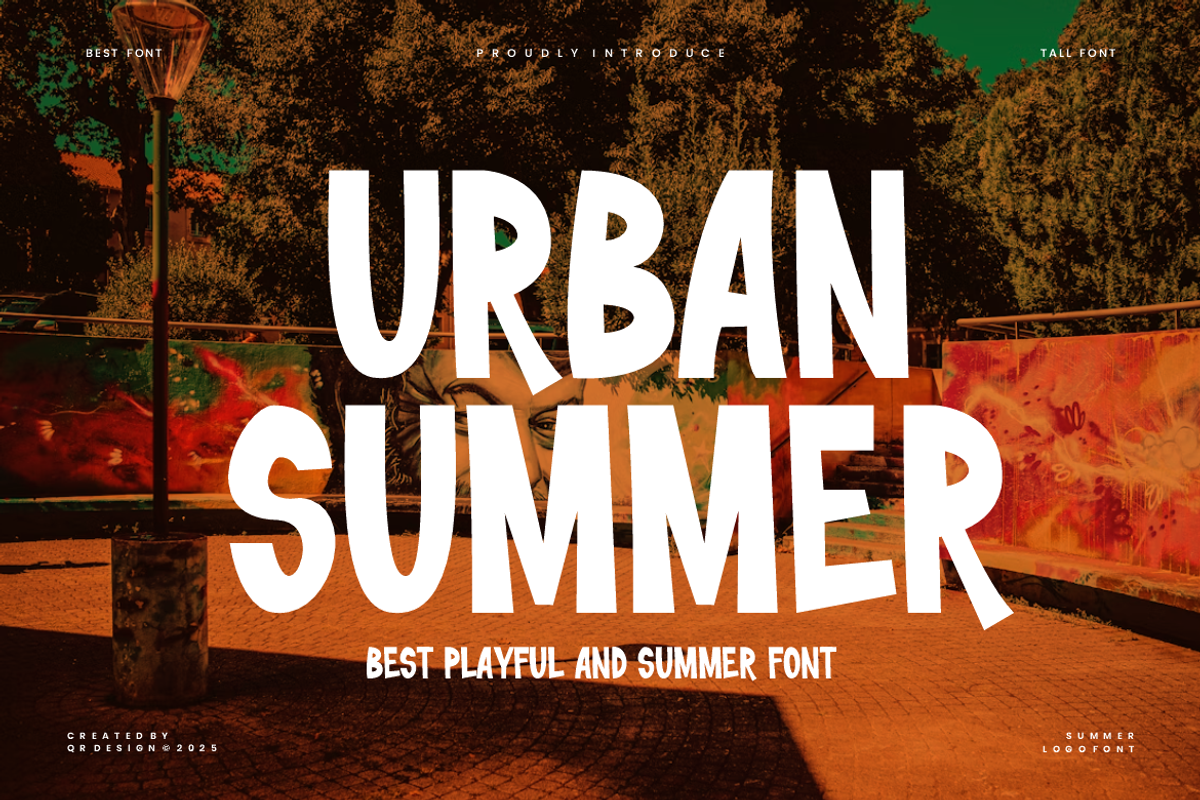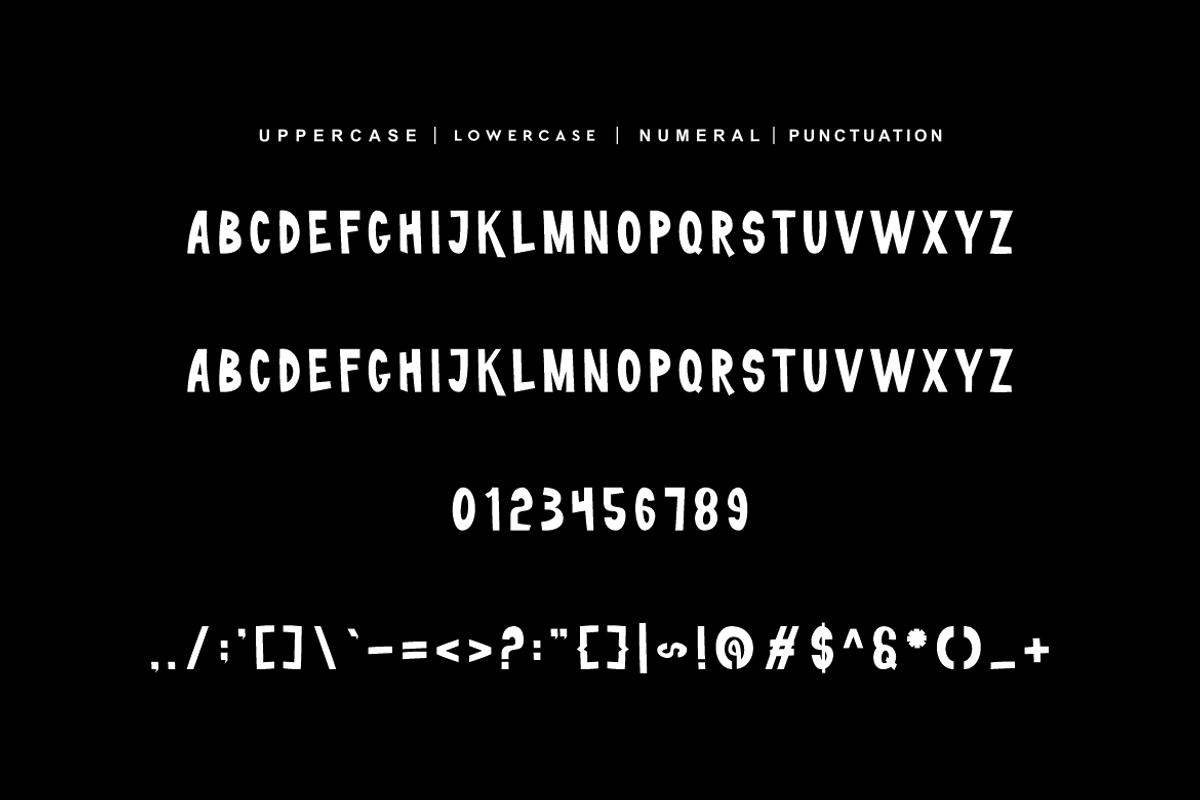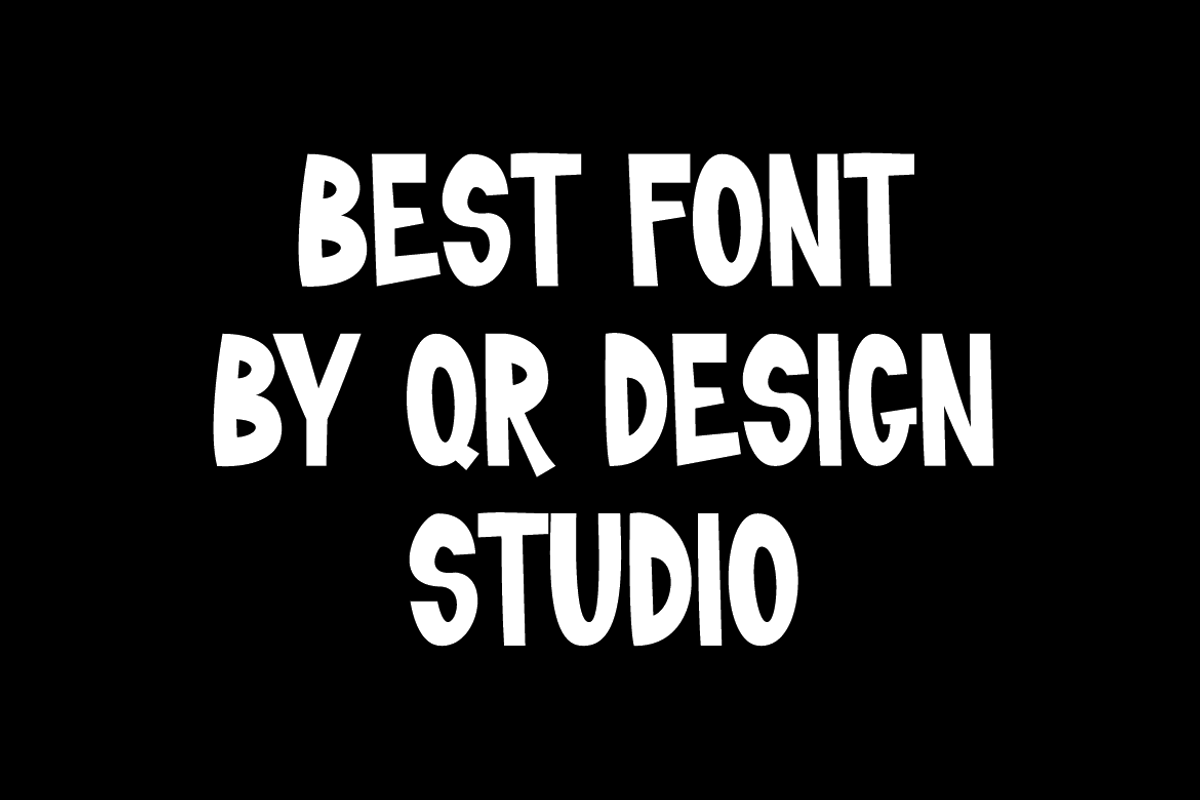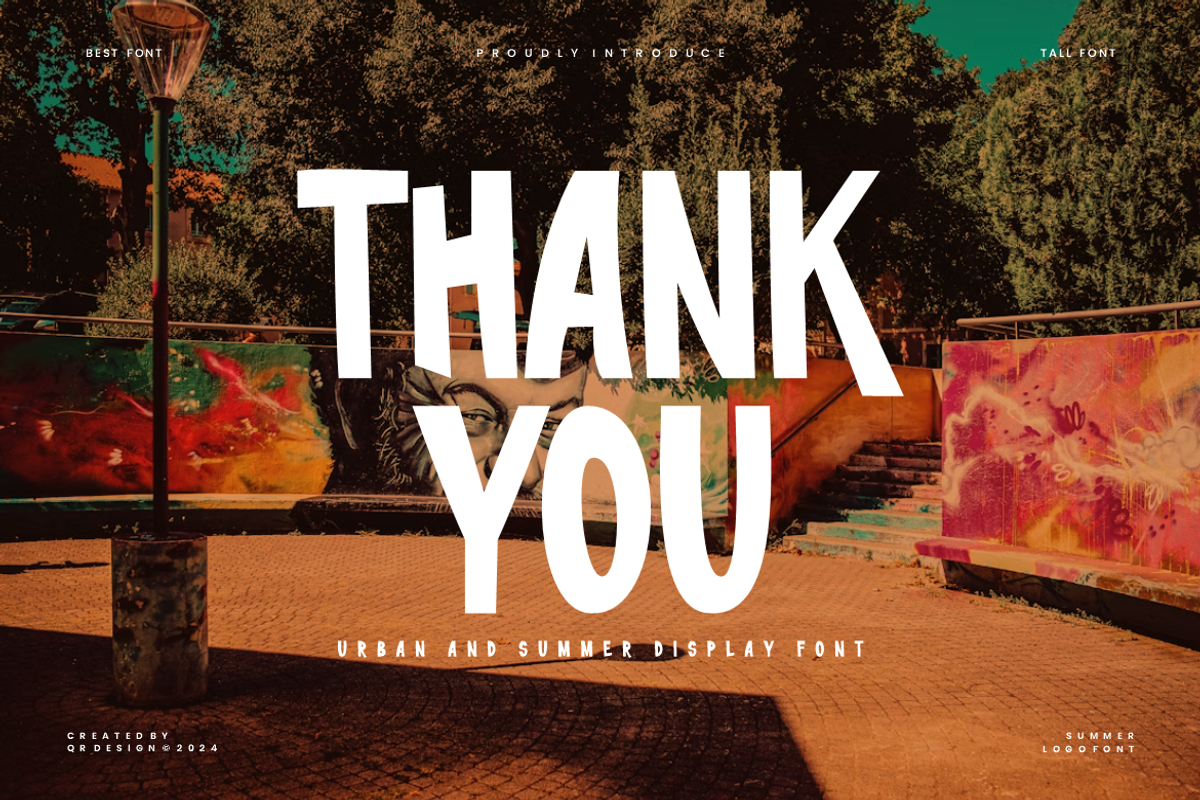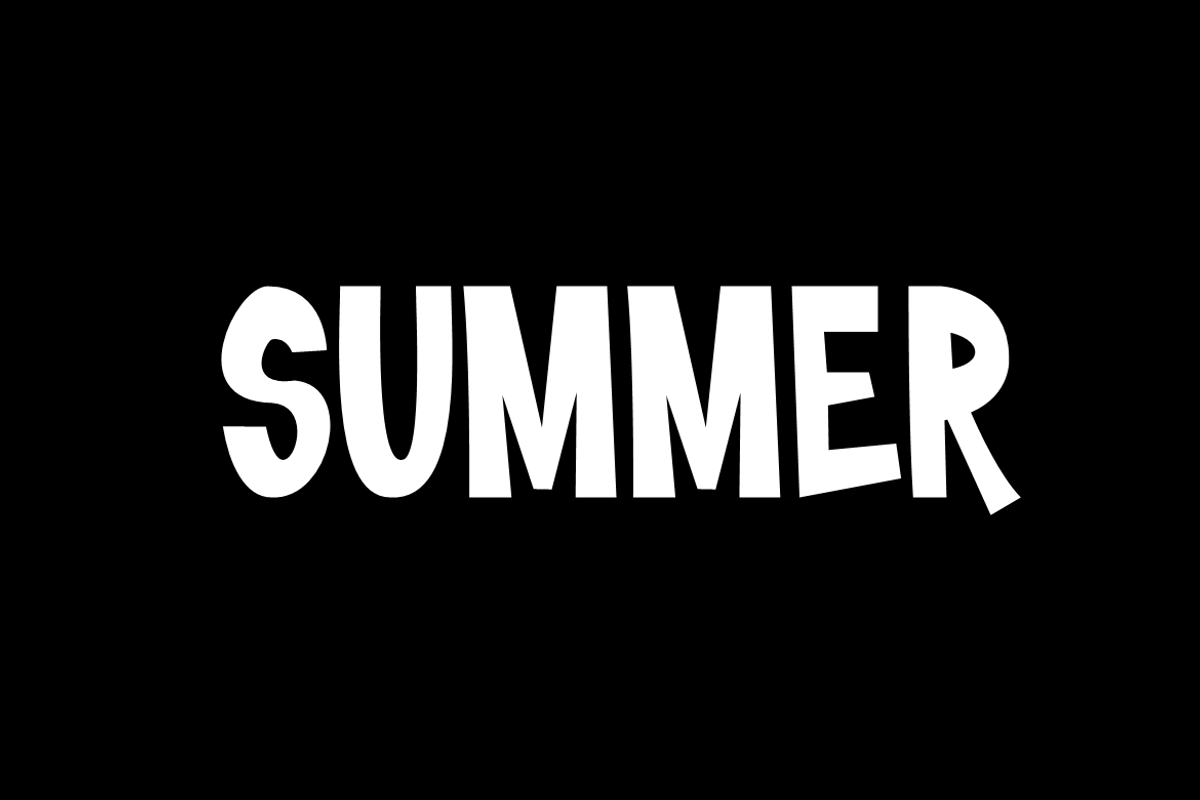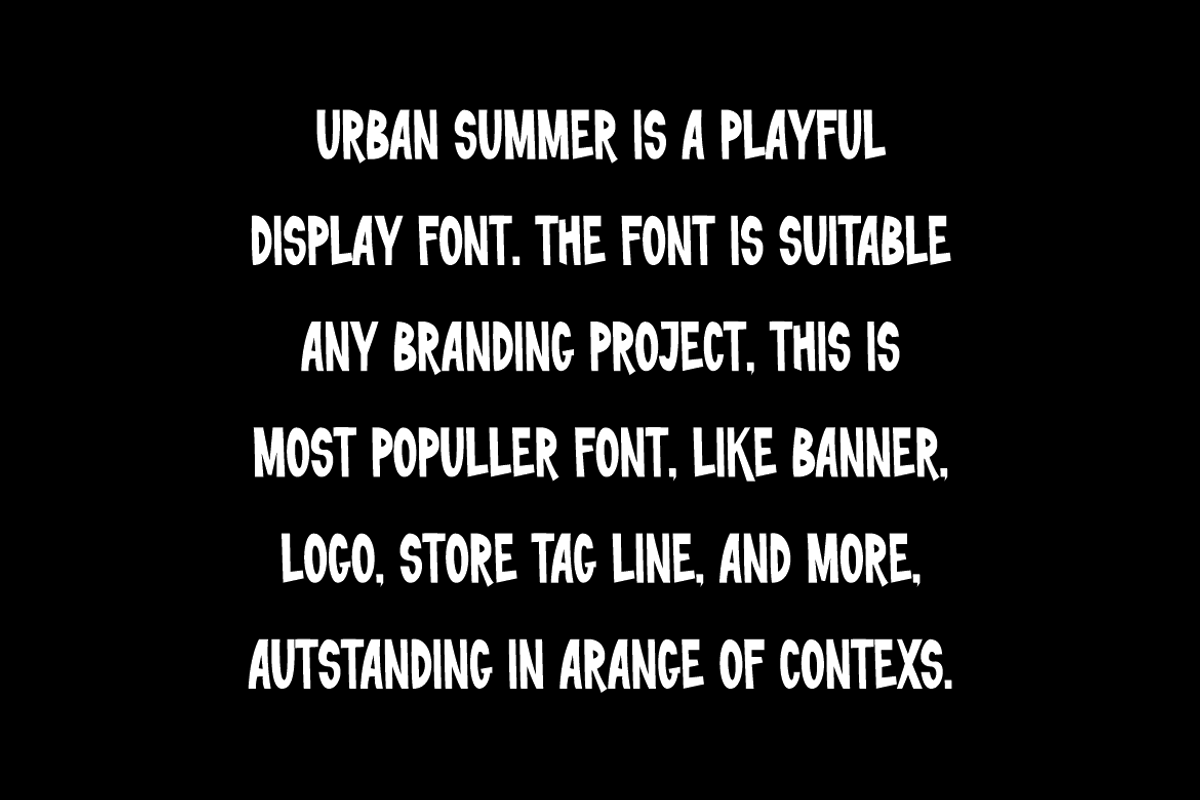
Urban Summer Font
Urban Summer Font is a modern and authentic display font. The font is suitable for any branding project like poster, logo, sport, and many more. Outstanding in a wide range of contexts.